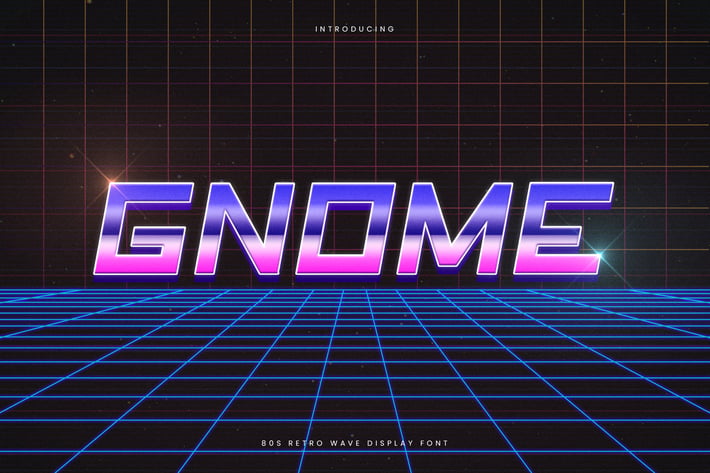
Gnome - Retro Wave Typeface
Introducing Gnome font. Are you looking for a bold and italic display font that match with retro feeling? We can help! Try to download our Gnome retro font. The font is suitable to use for many occasion such as invitation, banner, movie title, brand, event, and many more :)